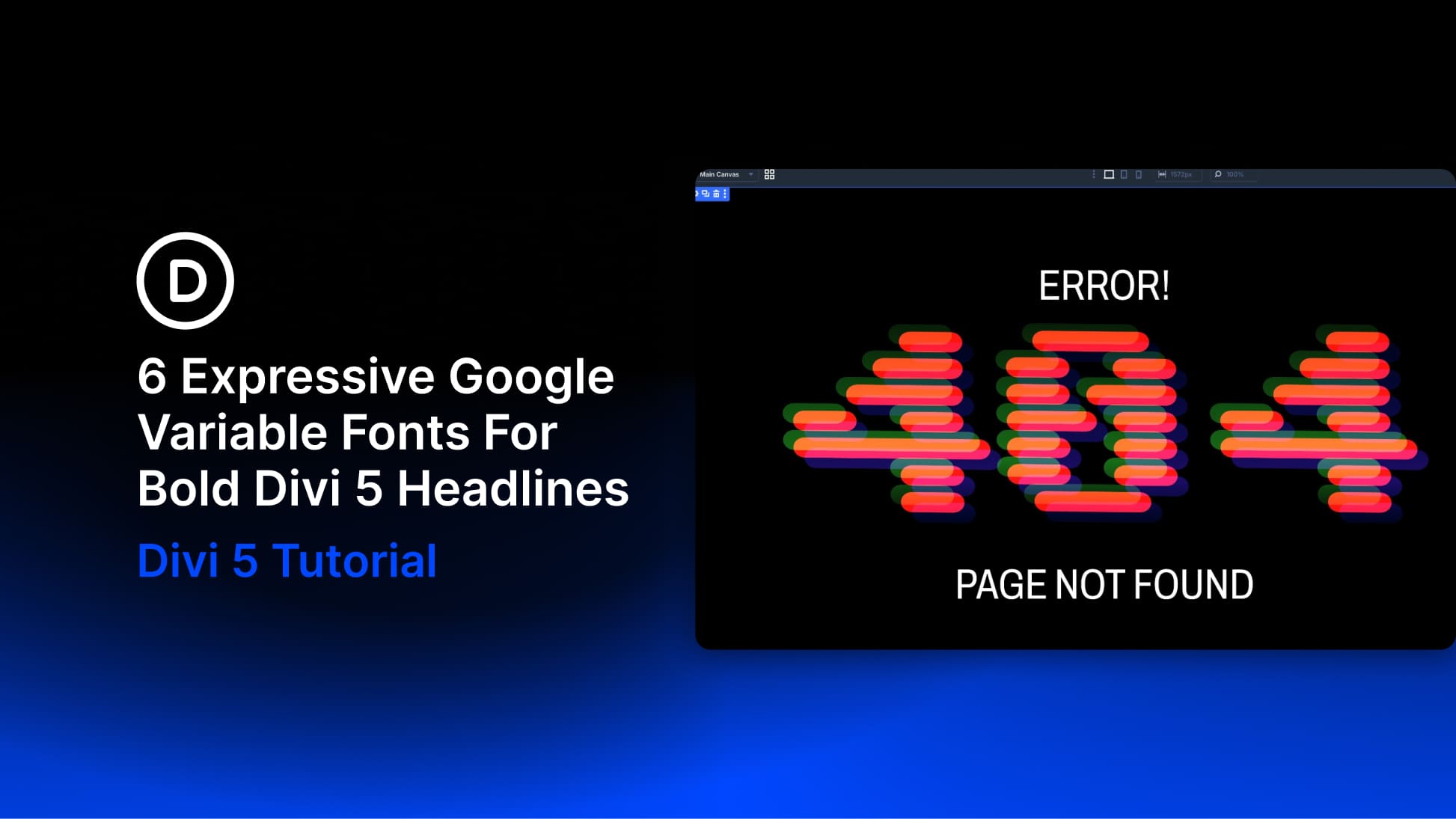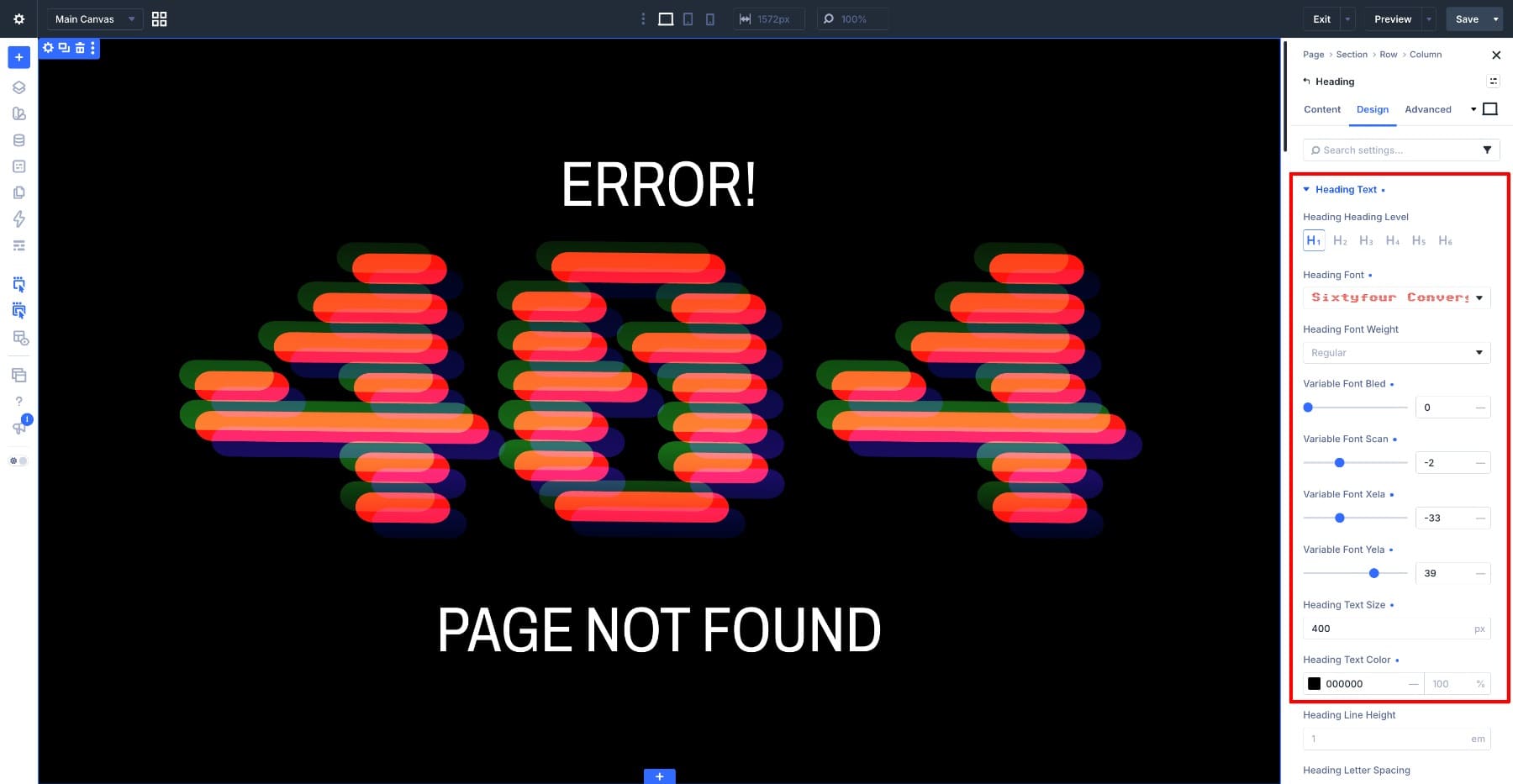
6 Expressive Google Variable Fonts For Bold Divi 5 Headlines
Open the font dropdown while editing text in almost any project, and you will probably scroll past many of the same reliable choices. That makes sense for body text, where readability across longer passages matters. Hero headings have a different job. With only a few words to communicate, they can afford to be more expressive.
Google Fonts includes several variable fonts that look too unusual for body copy but can work well as display type. The six designs below use expressive Google variable fonts in Divi 5, with each font assigned a specific role.
Why These Fonts Get Skipped
At first glance, it is easy to see why these fonts are often overlooked.
• Bitcount constructs its glyphs from repeated, pixel-like elements.
• Sixtyfour Convergence layers color and scanline-based elements to create CRT-inspired glyphs.
• Handjet builds glyphs from modular elements that can resemble an LED display.
• Shantell Sans uses its Bounce and Informality axes to create an irregular, hand-drawn feel.
• Kablammo combines a Morph axis with contextual alternates, allowing repeated characters to take different forms.
• Honk is a color font with built-in palettes and shadows.
At 16px, the more decorative fonts quickly lose clarity, while even the more readable options can feel too active across a long paragraph. That makes them easy to dismiss as novelty fonts. However, paragraph size is the wrong test for a hero heading. Body text has to stay readable across hundreds of words. A hero heading may only need to hold a few.
Nabla, another expressive variable font, shows this contrast clearly. Its layered structure works well at a large heading size but becomes difficult to read as the text gets smaller.
Used in the right place, these fonts can give a page a distinct look without carrying the entire design.
Where Divi 5 Fits In
Each variable font has its own axes. Kablammo has one, Handjet has three, and Honk has two in addition to its built-in color palettes. Axis names such as MORF, ELGR, and XELA are not always immediately descriptive, and values that look good in a font specimen do not always work in a real layout.
When you choose a supported Google variable font in a Divi 5 text option group, Divi reads the axes included in the font and displays the relevant controls alongside the standard text settings.
6 Expressive Variable Font Designs To Build In Divi 5
Each design uses a different variable font. You can copy the settings directly or adjust the axes once you understand what they control.
1. A 404 Page With Sixtyfour Convergence
A 404 page does not need much copy. The visitor already knows something went wrong, so the design can do more of the work. Here, a 400px number built from layered, colored elements becomes the main visual.
Add a Heading Module and set the content to 404. Open the Design tab, expand Heading Text, set the Heading Level to H1, and choose Sixtyfour Convergence from the Heading Font dropdown. Four variable font controls appear. Use these values:
• Variable Font Bled: 0
• Variable Font Scan: -2
• Variable Font Xela: -33
• Variable Font Yela: 39
• Heading Text Size: 400px
• Heading Line Height: 1em
Bled controls the horizontal bleed of the pixel elements. At 0, the forms stay crisp. Scan changes the scanline treatment. Setting it to -2 keeps the internal lines relatively restrained.
Xela and Yela control the horizontal and vertical alignment of the font’s elements. At -33 and 39, the color layers separate enough to show the convergence effect while the number remains recognizable.
404 page designed with the Sixtyfour Convergence variable font
Leave Heading Text Color at #000000. In browsers that support the font’s color format, the numerals still appear in orange, pink, and green because Sixtyfour Convergence stores its colors inside the font file. Divi’s text color setting does not override them.
Add two lines of plain white sans-serif text to finish the page. Place ERROR! above the number and PAGE NOT FOUND below it.
Next, switch the Variable Font Xela and Variable Font Yela controls to the Hover state. Set both values to 100 and leave the other settings unchanged. Divi transitions between the default and hover values, making the colored elements move apart when the cursor reaches the heading.
At 100 on both axes, the number becomes difficult to read during the hover effect. That works here because 404 is clear before the animation starts. If the text needs to stay readable throughout the interaction, keep the hover values closer to the default settings.